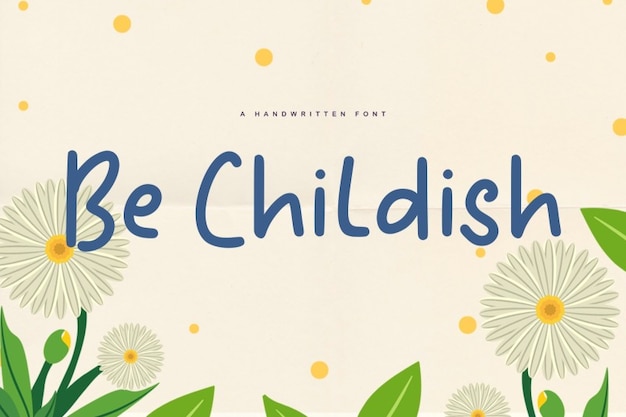
Be Childish Font
Be Childish is the font that brings out your inner kid. It's like your handwriting back when everything was cute, bubbly, and full of wonder. Each letter looks like it was drawn by a playful child, adding that innocent charm to your text. It's the perfect choice for anything related to kids, from birthday invitations to playful posters and more. Be Childish is like the font that skips through the pages of your favorite storybook, reminding you of the joy and magic of childhood. It's handwritten with a heart full of whimsy, making your text feel as playful and cute as a child's laughter.